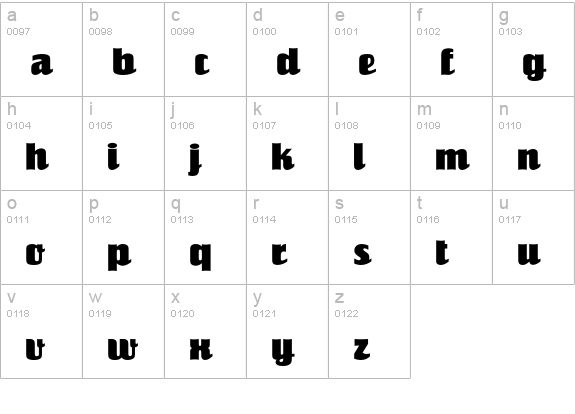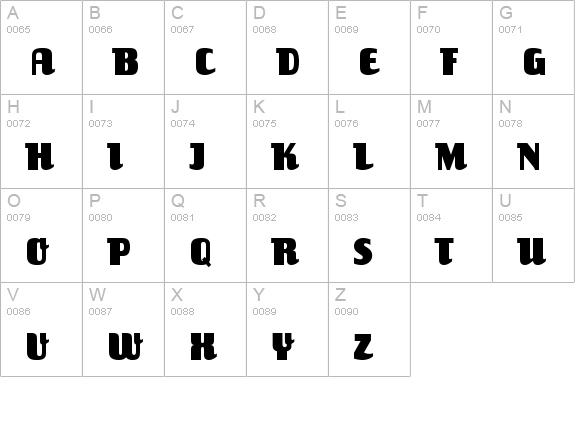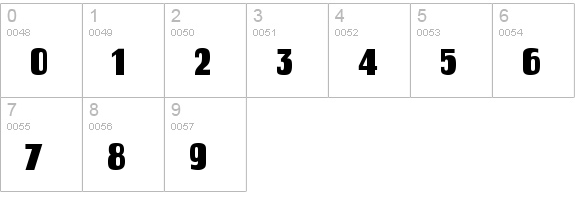
Einhorn Std Font Details
Einhorn Std font is a beautifully crafted typeface that exudes elegance and sophistication. Its sleek lines and modern design make it perfect for a wide range of creative projects, from branding to editorial design. The font features a unique blend of classic and contemporary elements, making it a versatile choice for designers looking to make a statement. What sets Einhorn Std font apart is not only its stunning aesthetics but also the fact that it is completely free to download. Yes, you heard that right - this high-quality font can be yours at no cost at FontsMarket.com. Whether you're a seasoned designer or just starting out, Einhorn Std font is a must-have addition to your collection. Download it today and elevate your designs with this exceptional typeface.